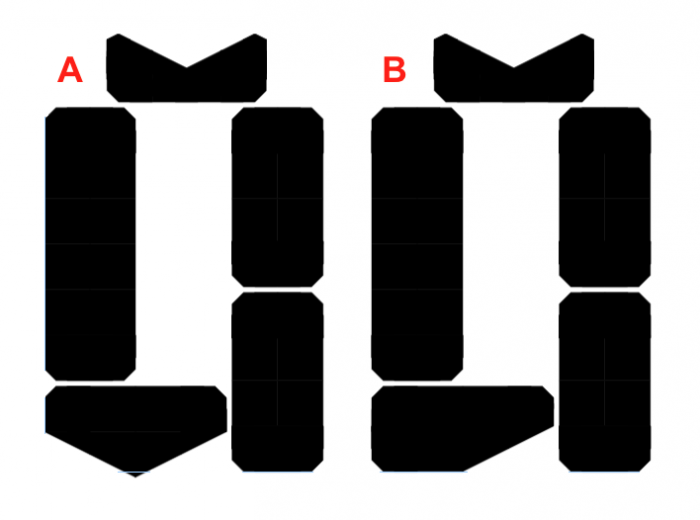
Cool stencil font. I didn't even immediately realize that it was like an inscription lined with stones or a fresco. Maybe we should make an additional font that puts stones in the white space. And one could say this is an interpretation of De Stijl (like most stencils). I slightly corrected the Cyrillic alphabet to make it look better, especially for the letters Д, М, the rest is my stylistic preference.
"Rocky" unicase font with a lot of alternates in the lowercase (also for cyrillic).
@elmoyenique - The intricately-cut corners make for a wonderful design. :^)
Quite a nice and well built font~
Cool stencil font. I didn't even immediately realize that it was like an inscription lined with stones or a fresco. Maybe we should make an additional font that puts stones in the white space. And one could say this is an interpretation of De Stijl (like most stencils). I slightly corrected the Cyrillic alphabet to make it look better, especially for the letters Д, М, the rest is my stylistic preference.
@Dmitriy Sychiov: What about this B option?